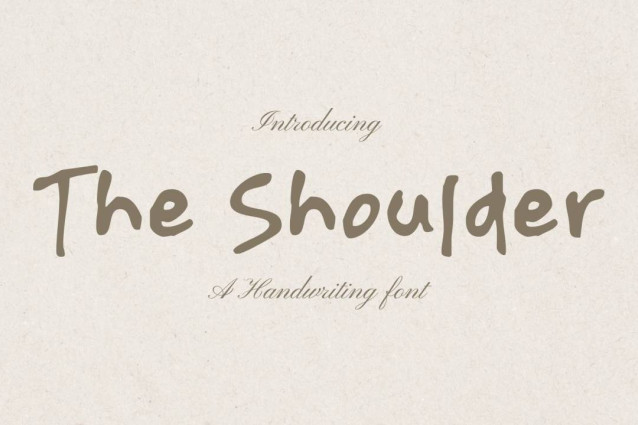
The Shoulder Font
The Shoulder Font is a simple and friendly handwritten font. Its natural and unique style makes it incredibly fitting to a large pool of designs. The only limit is your imagination!